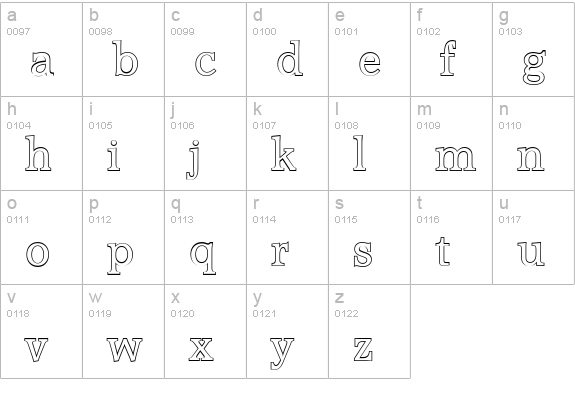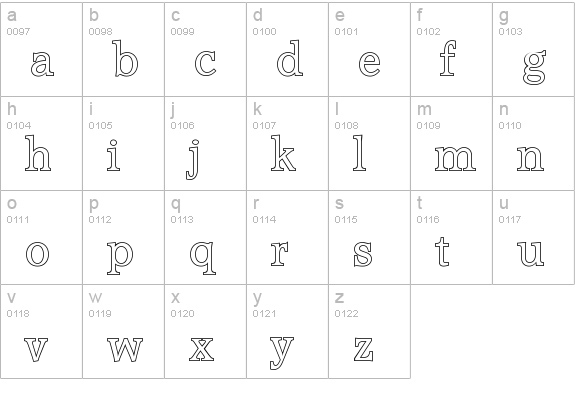
AccoladeOutline-Regular is the standard, neutral variant in the AccoladeOutline typeface family \xE2\x80\x94 well suited to general body text, paragraphs, and standard typographic work.
AccoladeOutline-Regular is a stylish and elegant font that adds a touch of sophistication to any design project. Its clean lines and classic feel make it perfect for a wide range of applications, from branding to print materials. This versatile font is sure to make your text stand out and leave a lasting impression. The best part is that AccoladeOutline-Regular is available for free download at FontsMarket.com. This means you can easily access and use this beautiful font in your projects without any cost. Don't miss out on the opportunity to enhance your designs with the timeless beauty of AccoladeOutline-Regular font. Download it today and elevate your typography game!